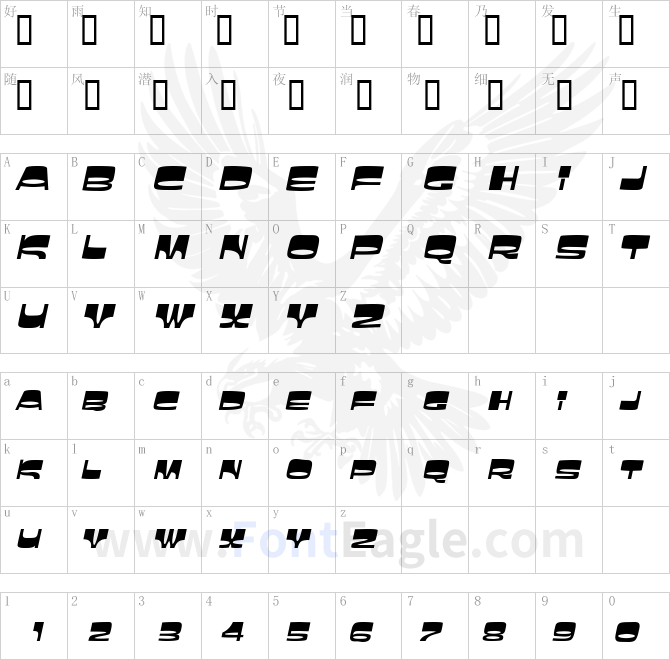
Sunbelt-Italic-copy-1- is a great font, widely used in graphic design, single-page menu design, poster design and other fields, and is deeply loved by designers.Sunbelt-Italic-copy-1- download.